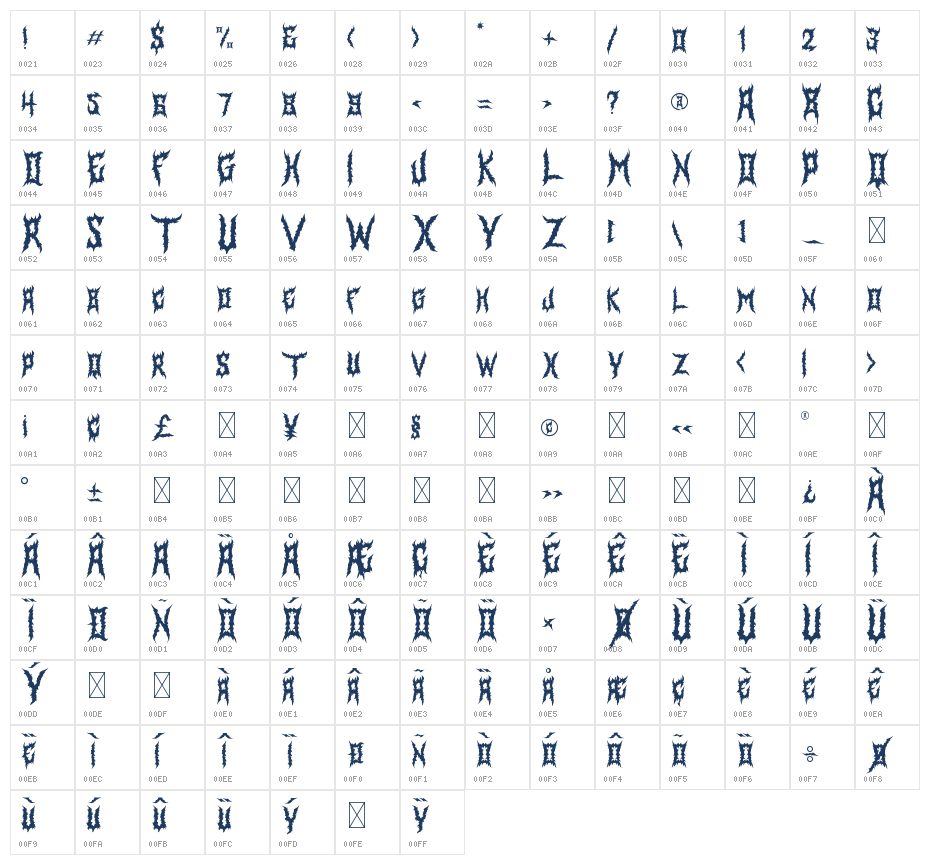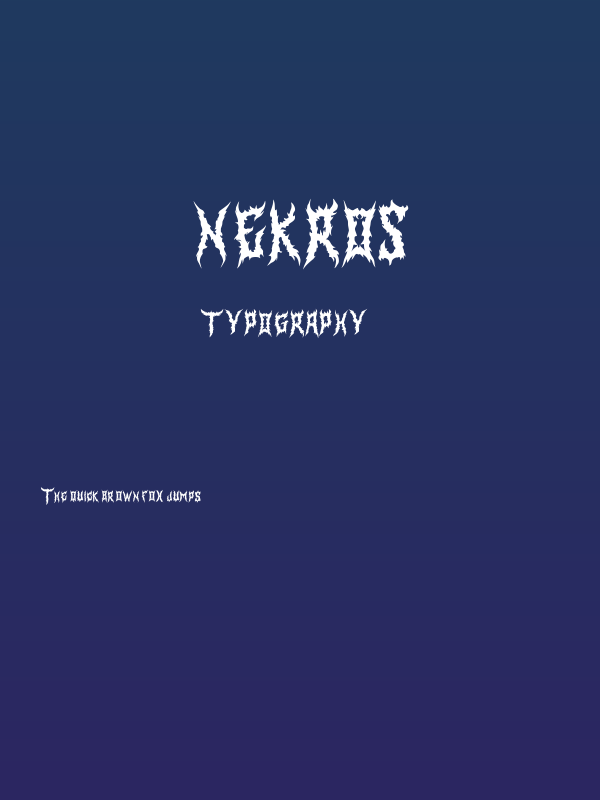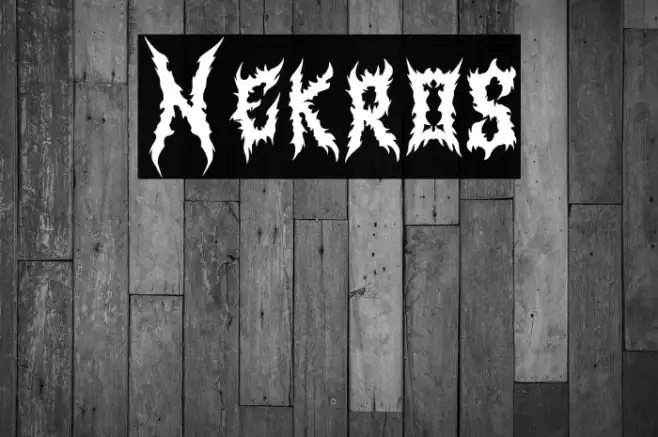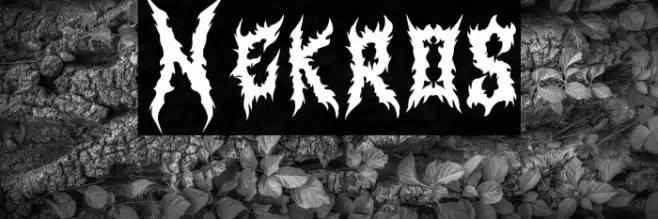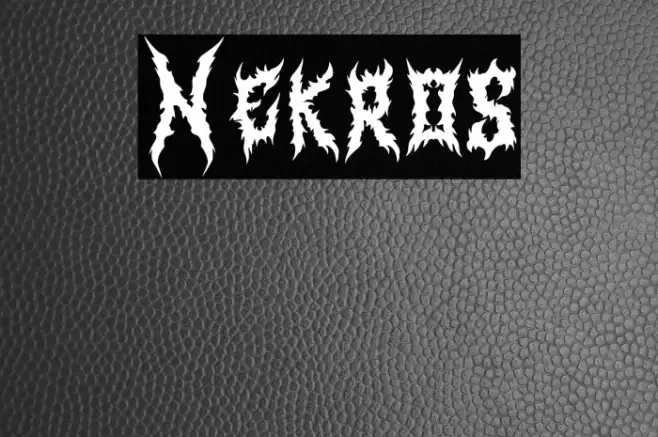
Nekros Font
Nekros Description
A jagged, horror-themed display font with irregular, flame-like edges and a distressed appearance.
| Overall Style | Horror, Gothic, Edgy |
| Use Case | Headlines, Titles, Posters |